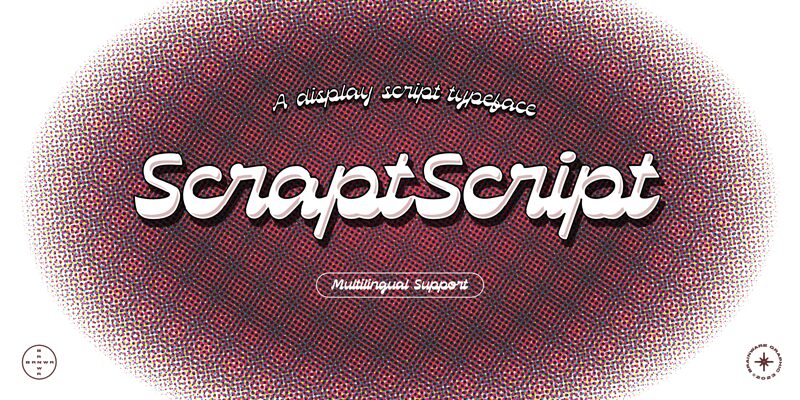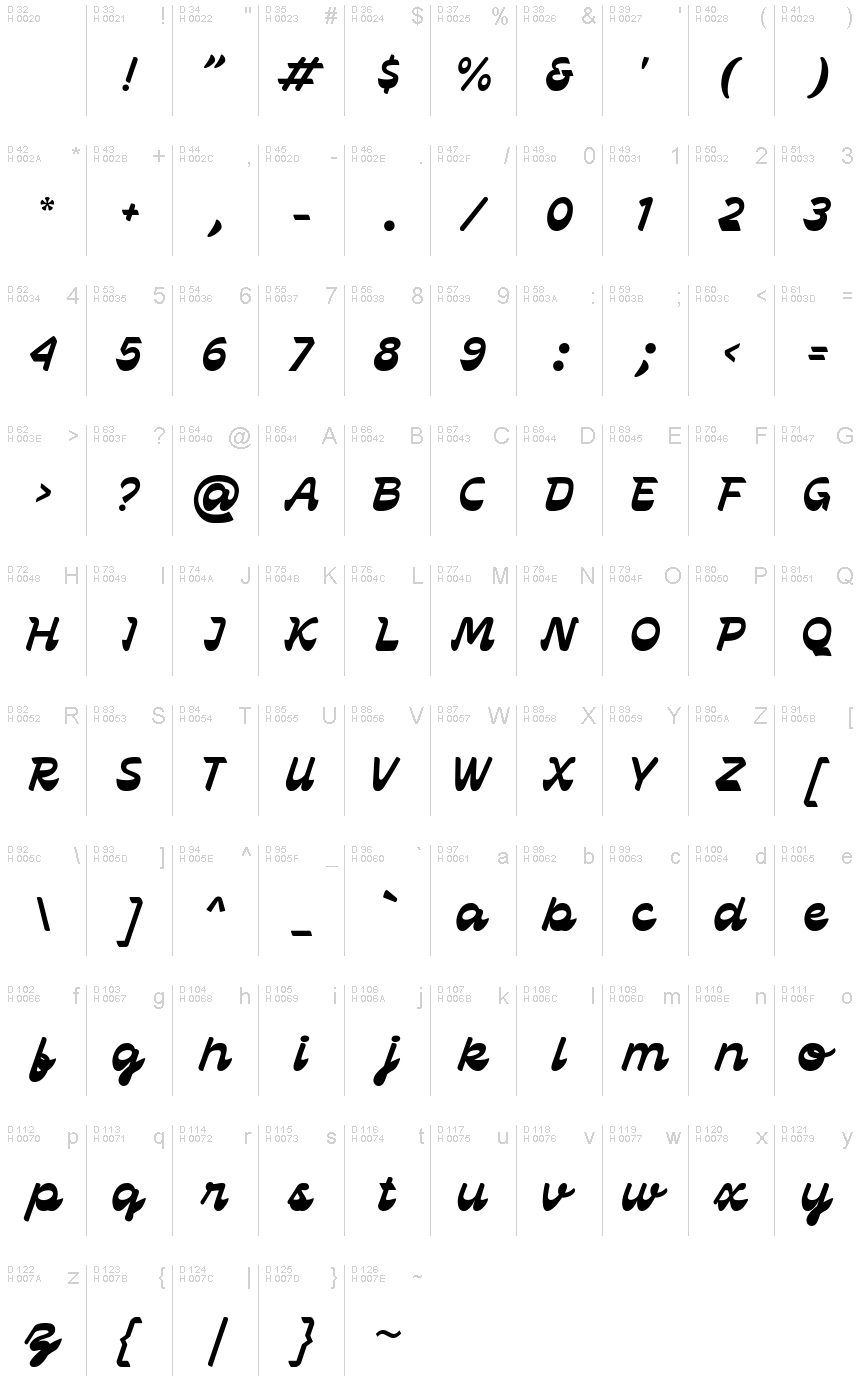
ScraptScript
ScraptScript font by Brainware Graphic is handwritten, playful, and dynamic. It features medium contrast and rounded shapes that come together in an informal yet flowing letterform. The connected script has a modern touch wrapped in expressive cursive elements and bold lines.
Whether you use it for logos, posters, packaging designs, or social network posts; this free font will send the right vibes to your audience. The lovely typeface can add a genuine personal touch to invitations too including weddings, birthdays, anniversaries…and more!